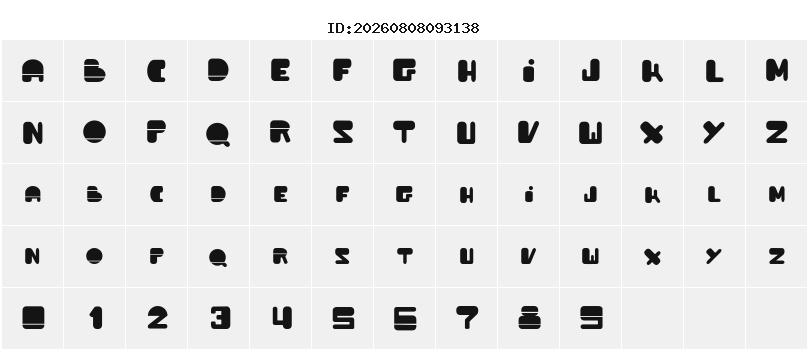
• Font Name: Powda
• Designer: David Whitmer
About Powda.otf
Powda.otf is a modern, elegant sans-serif font designed for ultimate readability and visual harmony. Perfect for branding, headlines, web design, and print materials.